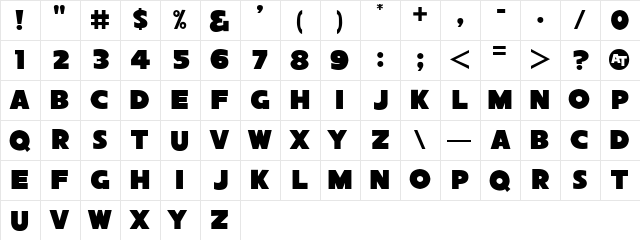
Sans Poster Bold JL Regular
Foundry: Jeff's Fonts & Dingbats
Designer: Jeffrey N. Levine
Design Context for Sans Poster Bold JL
Sans Poster Bold JL is a composed and adaptable typeface that performs quietly and consistently across a wide range of design contexts. Its bold stroke weight gives it real presence on the page.